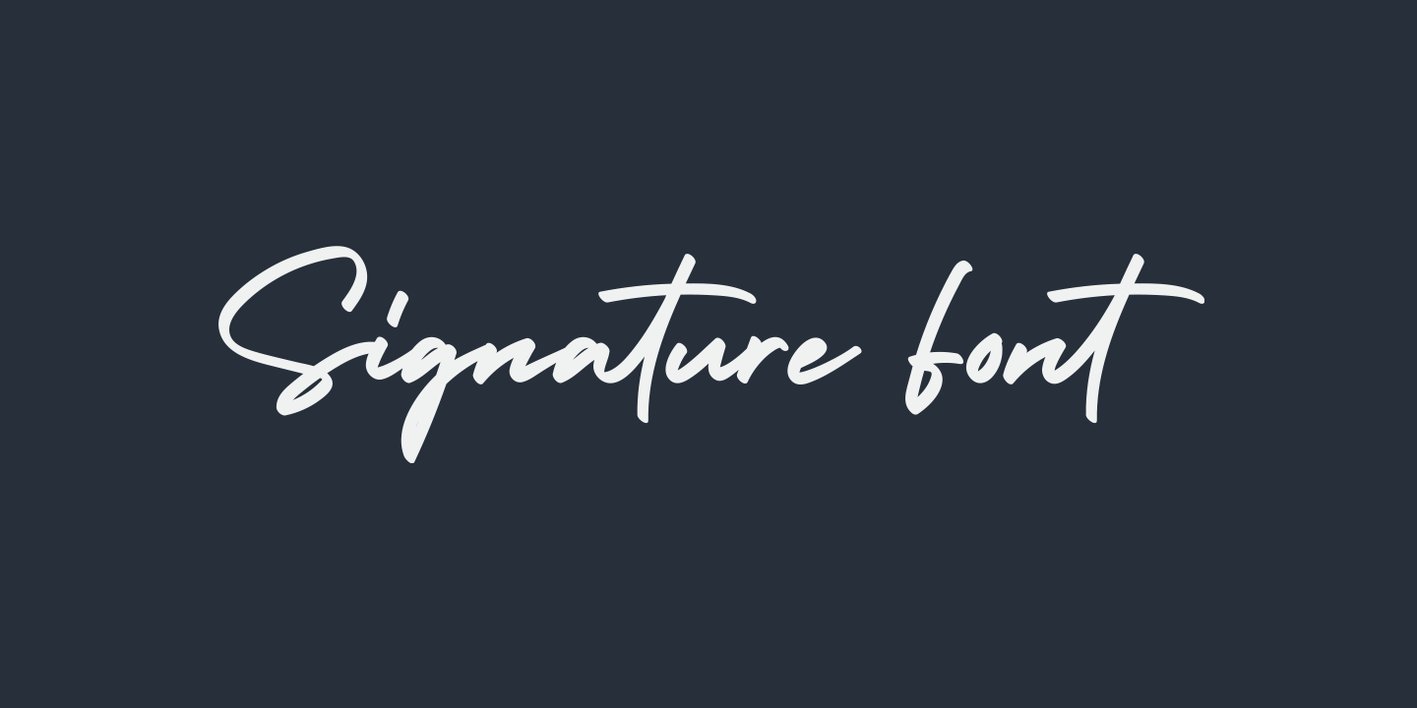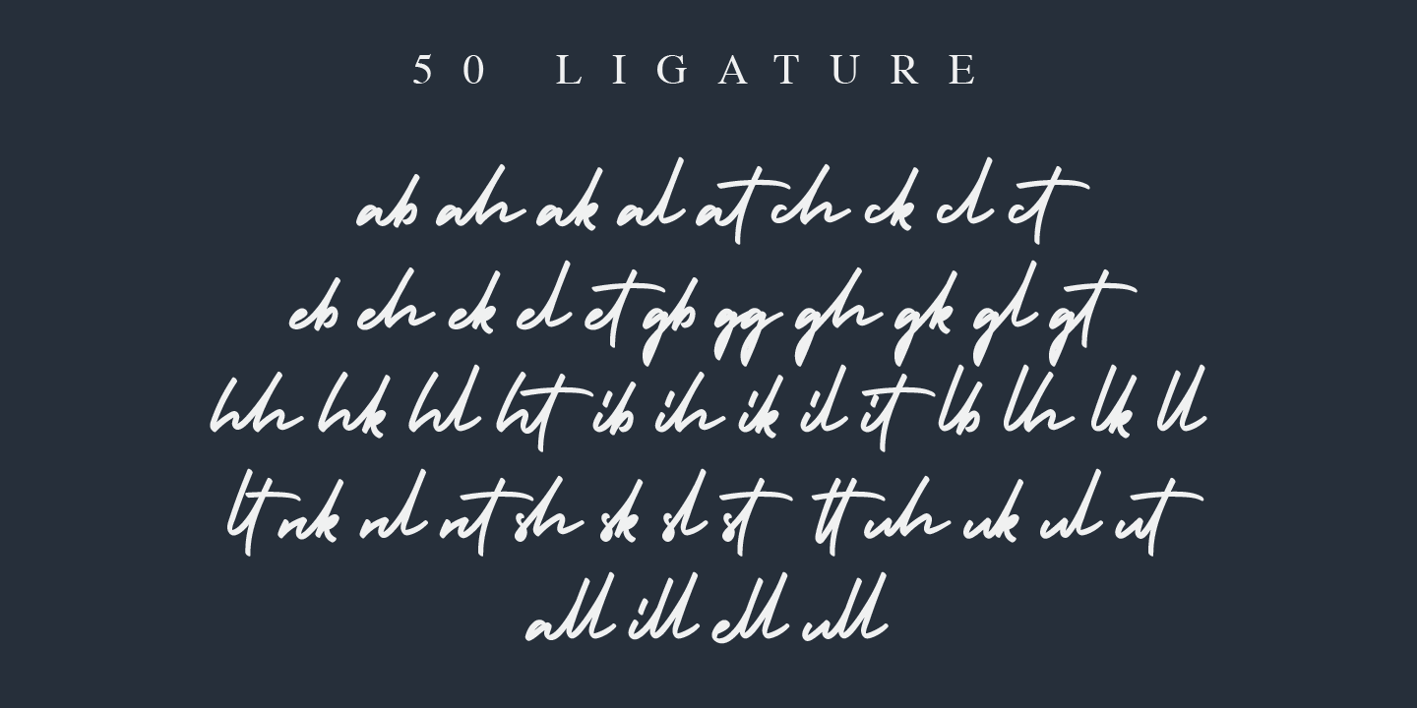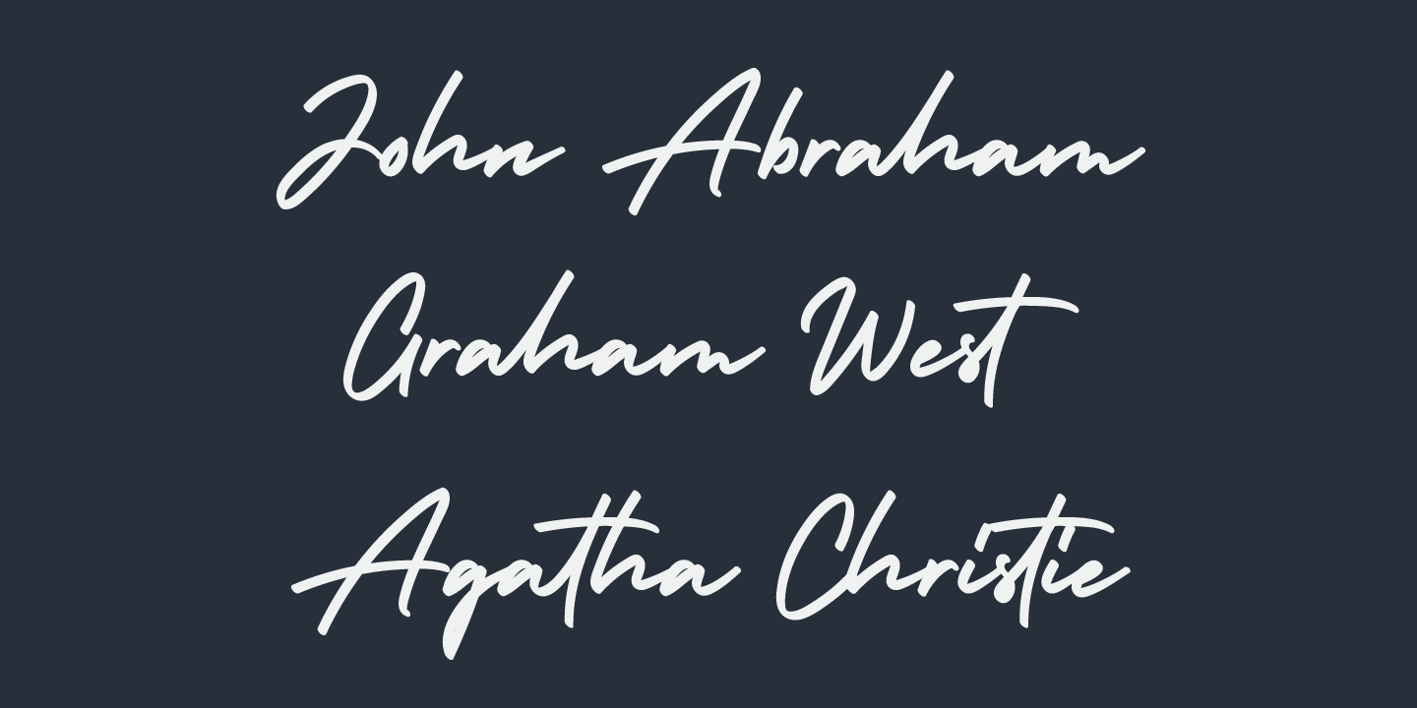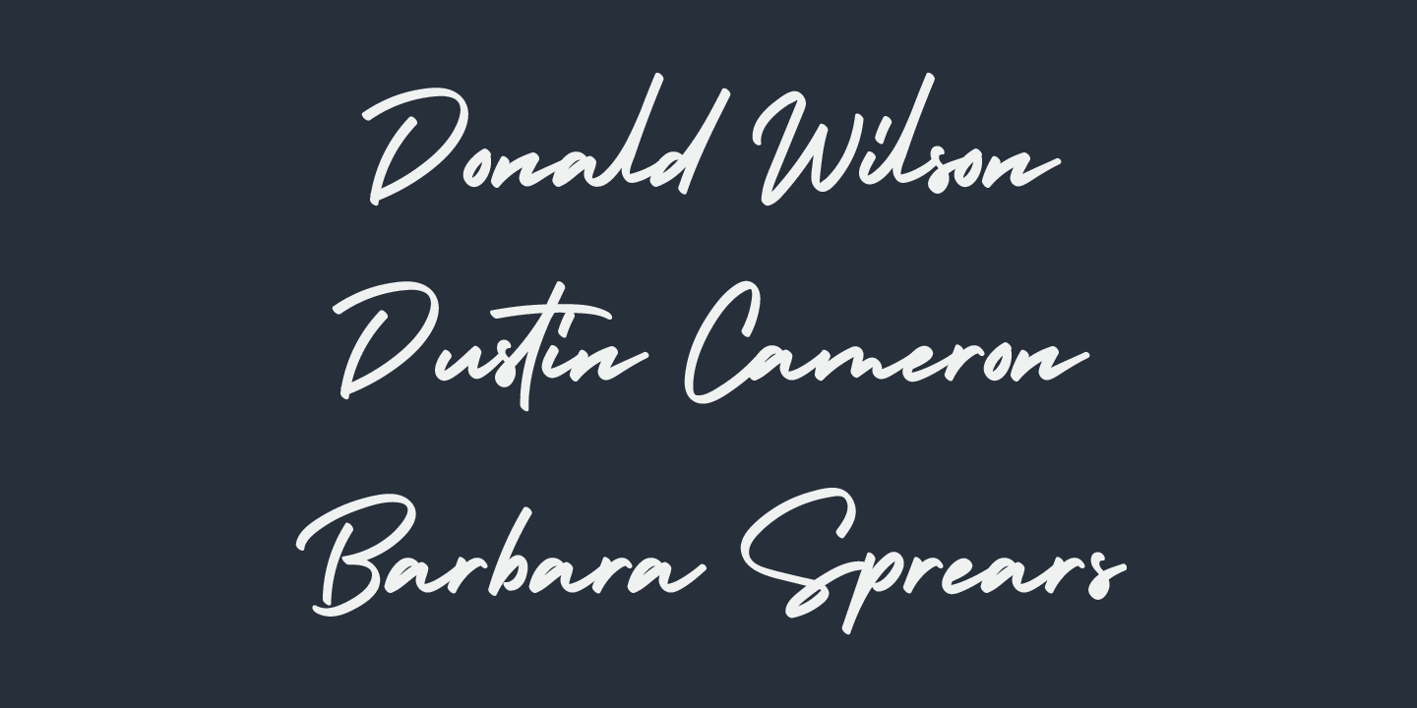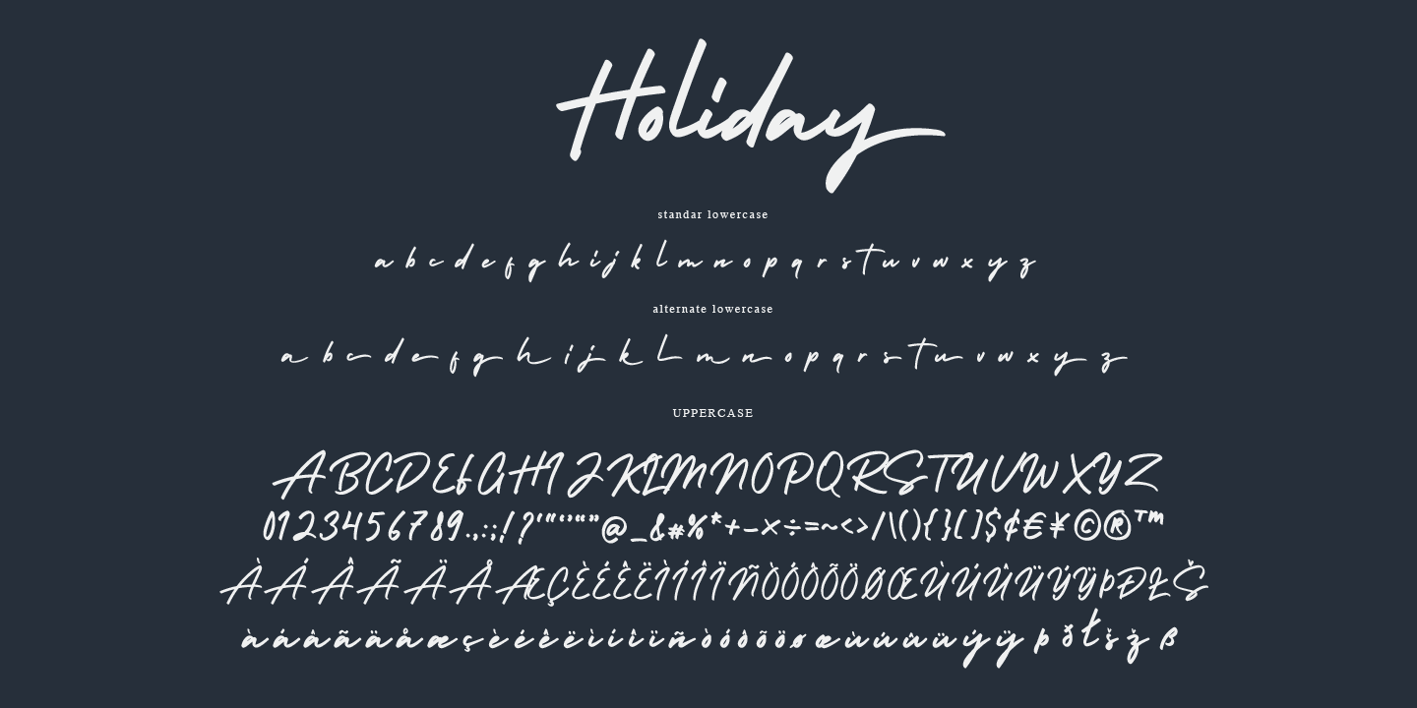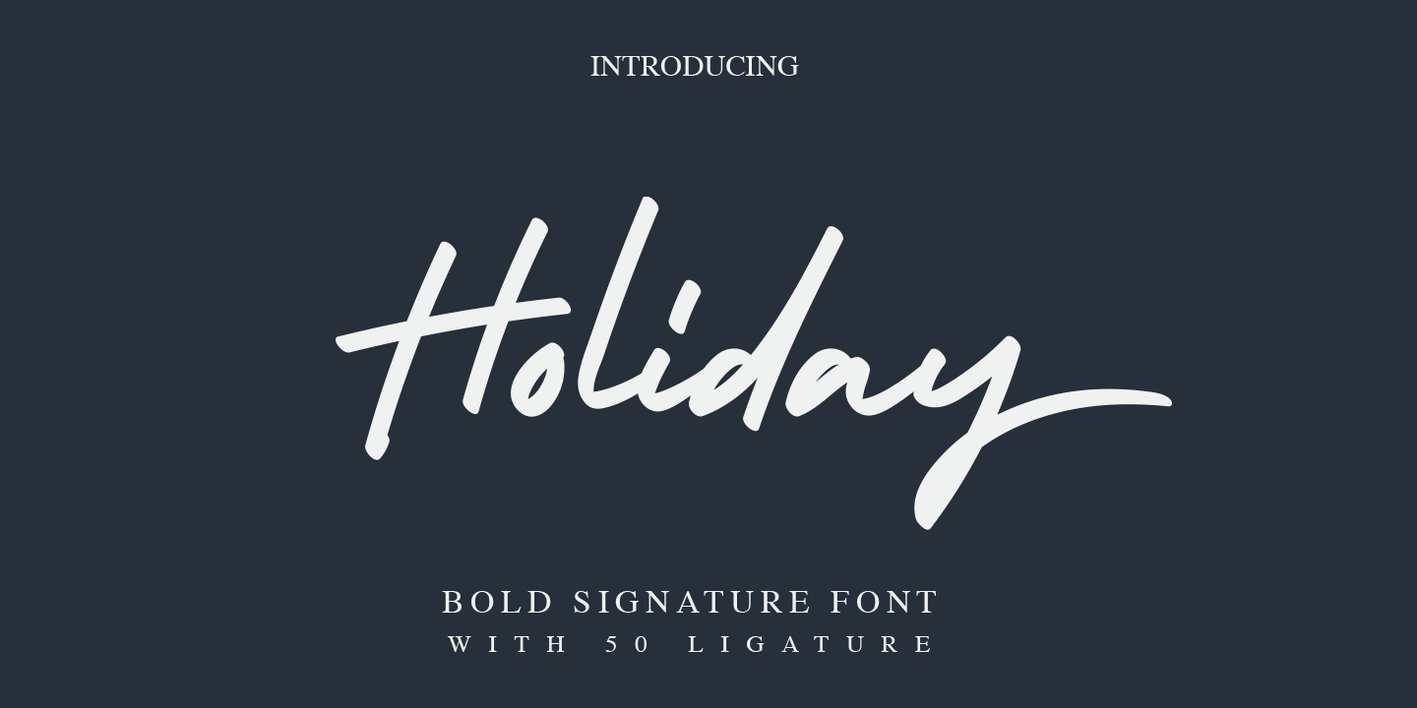
Holiday Font
Two years ago we created a script handwritten font that we named Holiday, we didn't expect, hundreds of designers have use the Holiday font, this is really cool font. And today, we've been working hard to make this Holiday font even better, it's the best script handwritten font we've ever made, we've named it Holiday2.